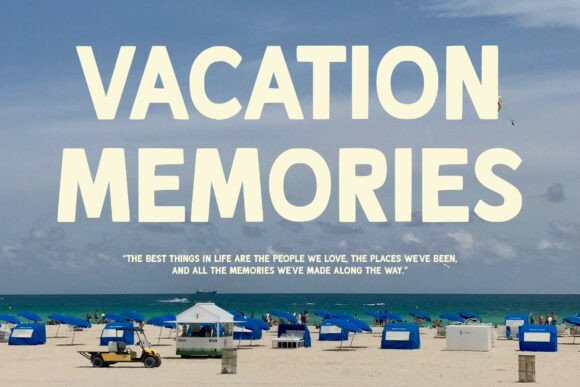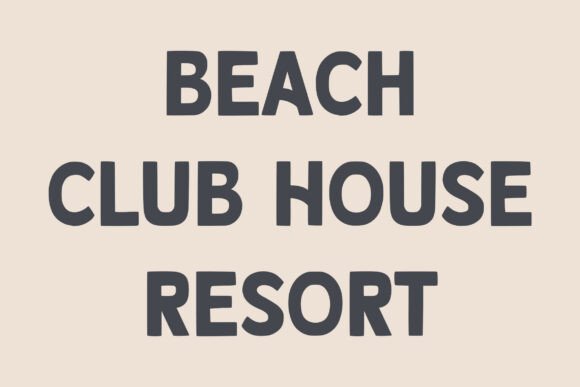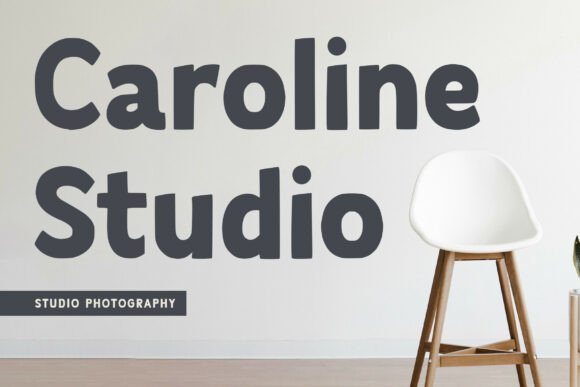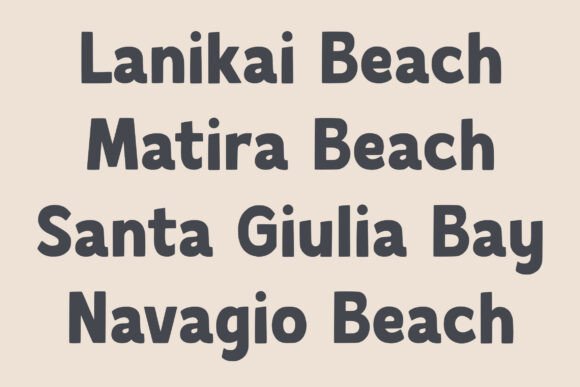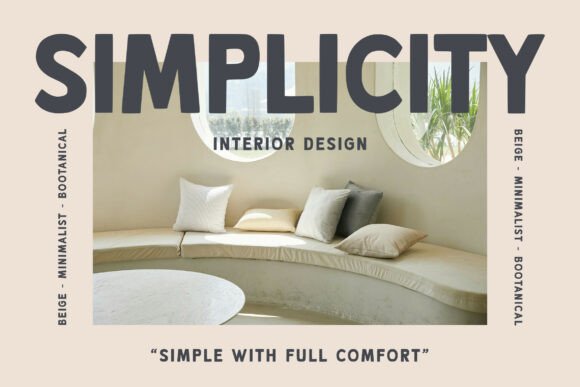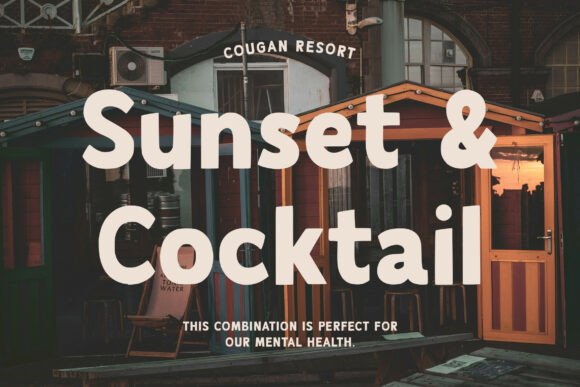
Introducing Cinquera Font: A Bold and Expressive Sans-Serif Display Font
In the world of typography, a font can make all the difference in the success of a design project. A well-crafted font can elevate a brand’s identity, convey its message, and leave a lasting impression on its audience. This is where Cinquera Font comes in – a bold and expressive sans-serif display font designed by Arendxstudio. With its unique blend of retro charm and modern impact, Cinquera is an excellent choice for designers and crafters looking to add a touch of personality to their projects.
The Design Behind Cinquera
Cinquera Font is a hand-drawn sans-serif display font that boasts clean lines and a strong structure. Its bold and expressive design makes it perfect for headlines, logos, posters, and branding projects. The font’s retro vibes and bold presence give it a unique personality that stands out in any layout. Whether you’re designing a brand identity or a standout title, Cinquera delivers both readability and character.
Key Features of Cinquera Font
- Bold and Expressive Design: Cinquera’s bold and expressive design makes it perfect for headlines, logos, and posters.
- Retro Charm: The font’s retro vibes give it a unique personality that adds a touch of vintage flair to any project.
- Modern Impact: Cinquera’s clean lines and strong structure give it a modern impact that works well in a variety of design projects.
- Hand-Drawn: The font’s hand-drawn design gives it a personal touch that sets it apart from other fonts.
- Excellent Readability: Cinquera’s clear and legible design makes it easy to read, even at small sizes.
Why Choose Cinquera Font?
There are many reasons why designers and crafters should choose Cinquera Font for their projects. Here are a few:
- Unique Personality: Cinquera’s unique blend of retro charm and modern impact gives it a personality that stands out in any layout.
- Versatility: The font’s bold and expressive design makes it suitable for a wide range of design projects, from headlines and logos to posters and branding projects.
- High-Quality Design: The font is designed with high-quality craftsmanship, ensuring that it looks great in any project.
How to Use Cinquera Font
Cinquera Font is easy to use and can be applied to a wide range of design projects. Here are a few ideas:
- Headlines and Titles: Use Cinquera to create bold and eye-catching headlines and titles.
- Logos and Branding: The font’s unique personality makes it perfect for logos and branding projects.
- Posters and Flyers: Cinquera’s bold and expressive design makes it suitable for posters and flyers.
- Digital Design: The font works well in digital design projects, such as website headers and social media graphics.
In conclusion, Cinquera Font is a bold and expressive sans-serif display font that offers a unique blend of retro charm and modern impact. Its clean lines and strong structure make it perfect for headlines, logos, posters, and branding projects. With its excellent readability and character, Cinquera is an excellent choice for designers and crafters looking to add a touch of personality to their projects.